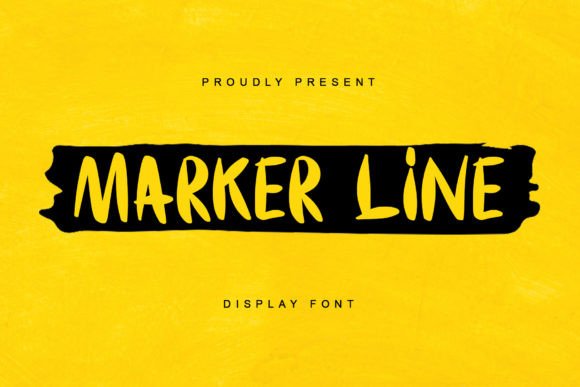
Introduce the Marker Line Font: A Journey into the World of Bold Expression
In a world saturated with monotony and conformity, the Marker Line Font emerges as a beacon of originality, inviting you to embrace your inner artist and unleash your creative spirit. Inspired by the playful strokes of a marker pen, this display font breathes life into your designs with a casual yet captivating charm.
With its thick, bold strokes and youthful exuberance, the Marker Line Font is not just a font; it's an experience. Its vibrant personality shines through in every letterform, adding a touch of whimsy and delight to your creations. Whether you're a seasoned designer or just starting your artistic journey, this font will effortlessly elevate your projects to new heights of visual impact.
Visualize your designs transformed with the Marker Line Font's energetic presence. Picture your headlines bursting with personality, your posters radiating charm, and your branding materials leaving an unforgettable mark. This font is your gateway to a world of captivating expression, where ordinary becomes extraordinary.
Unleash the boundless potential of the Marker Line Font and let your imagination soar. Explore new creative avenues, push boundaries, and captivate your audience with designs that resonate with authenticity and style. Embrace the freedom of self-expression and let your creativity flourish.